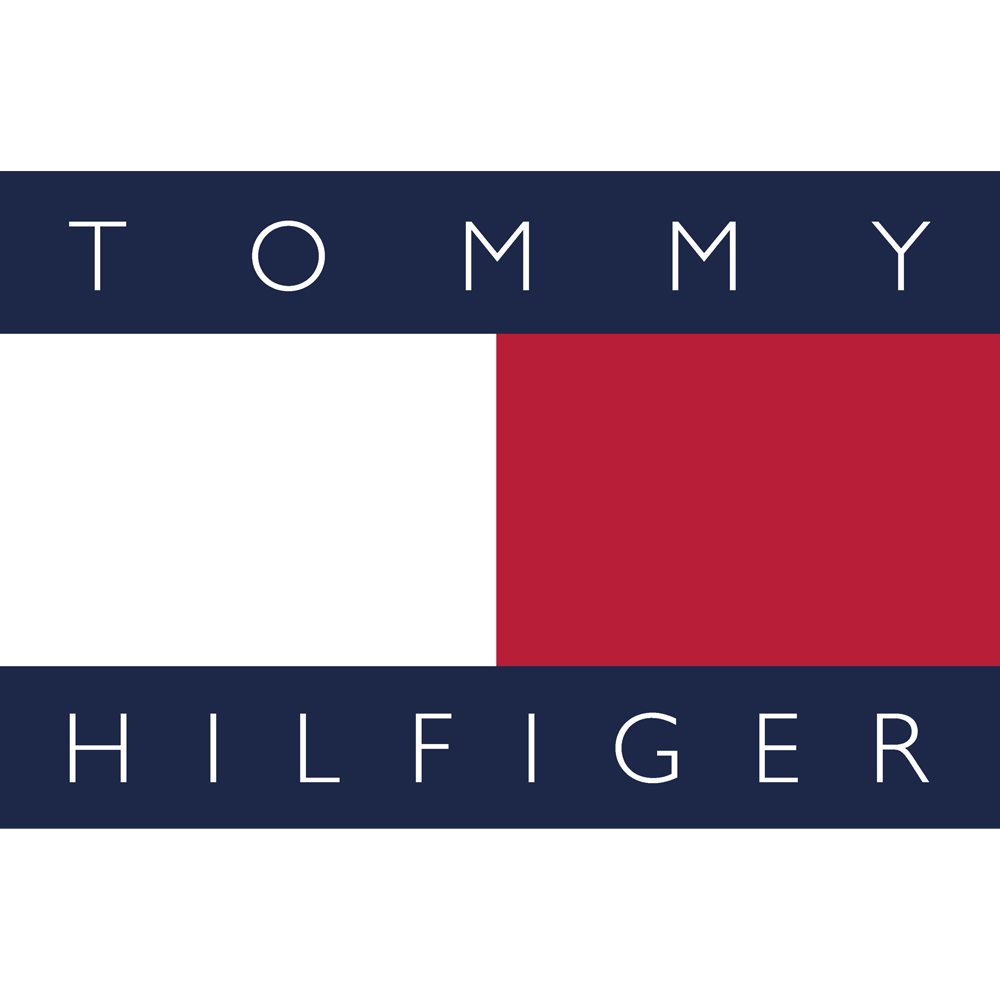
Tommy Hilfiger Font
ApparelTommy Hilfiger is an American fashion brand founded in 1985 by designer Tommy Hilfiger. The brand is known for its classic, preppy style, often featuring striped patterns and colors such as red, white, and blue. Tommy Hilfiger is known for its iconic rectangular blue, white, and red logo.
The logotype set in a sans serif named Gill Sans which is a commercial typeface designed by Eric Gill and you can view more details about it here.